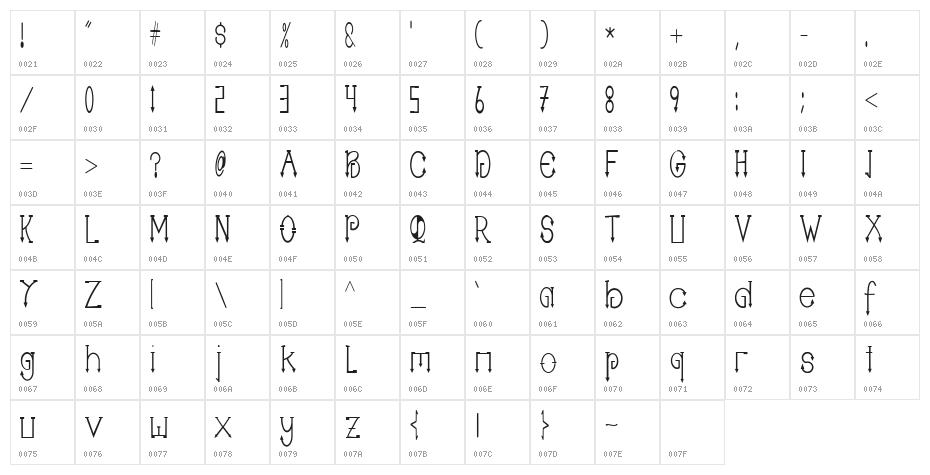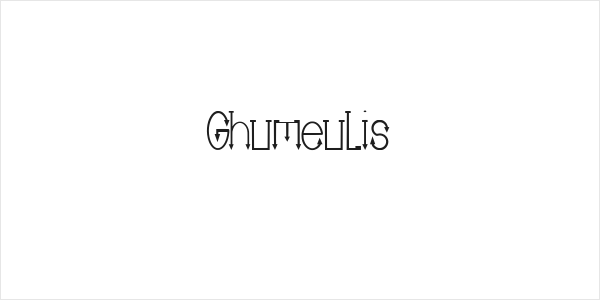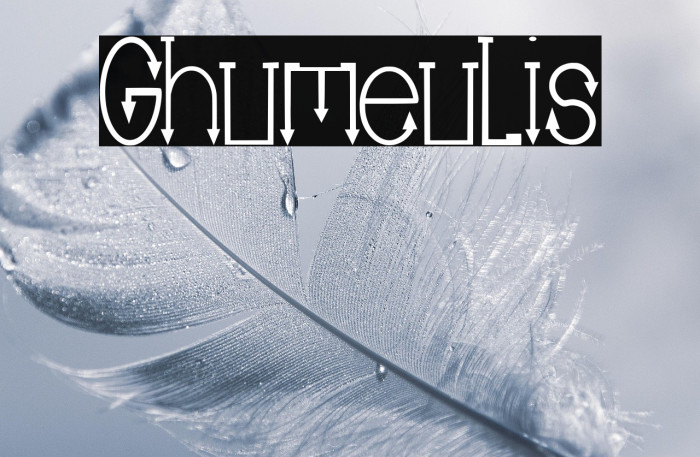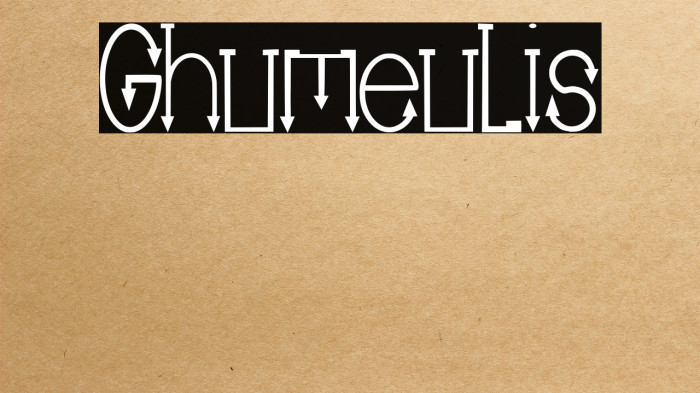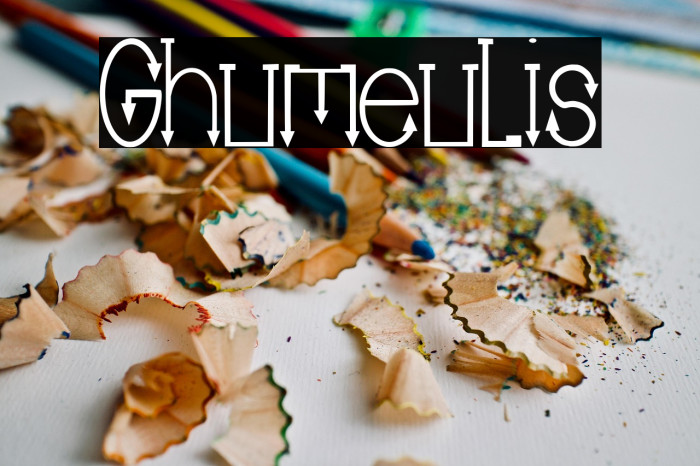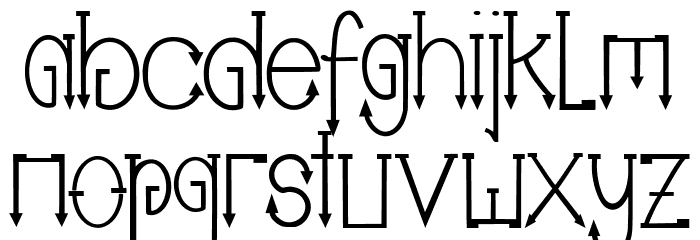
Ghumeulis Font
Ghumeulis Description
This font features a unique and decorative style with arrows integrated into the design of each character. The uppercase and lowercase letters maintain a consistent theme, with sharp angles and pointed elements that create a dynamic and eye-catching appearance. The numbers and special characters follow the same stylistic approach, ensuring a cohesive look across all glyphs. The font's distinctiveness makes it suitable for creative and bold design projects where a statement is needed.
| Proposed Projects | Ideal for posters, album covers, branding projects, and any design work that requires a bold and artistic touch. |